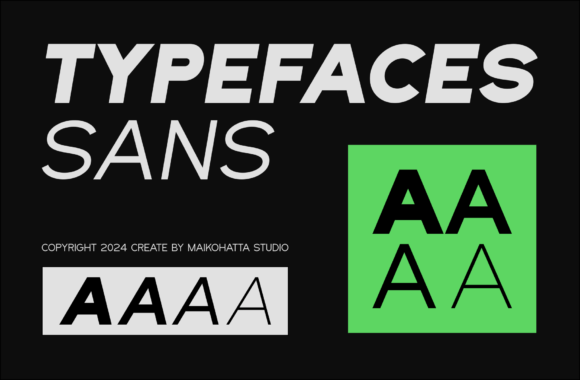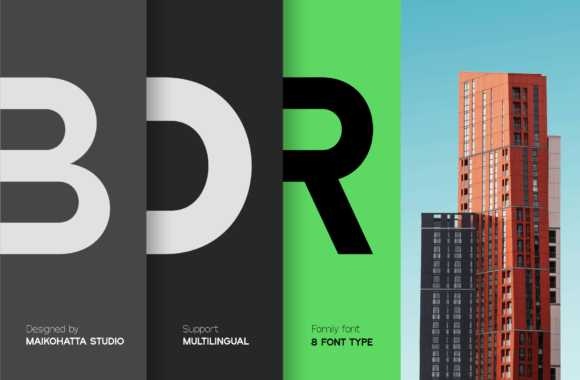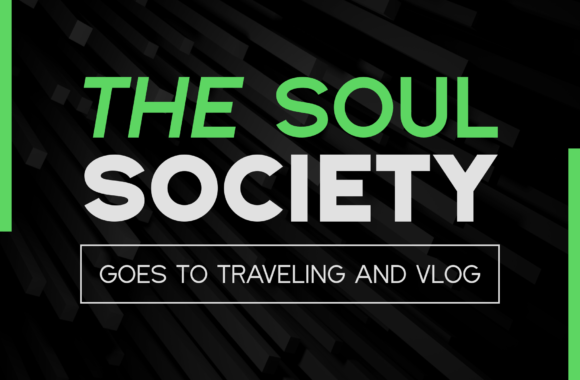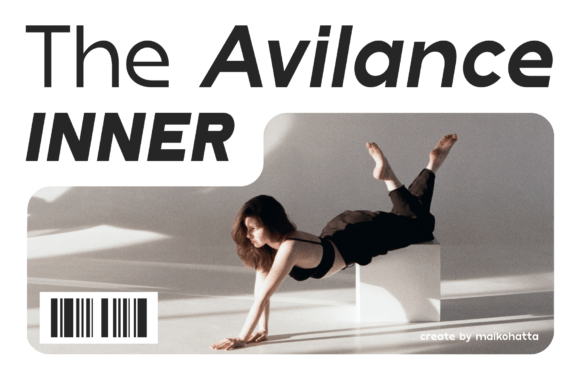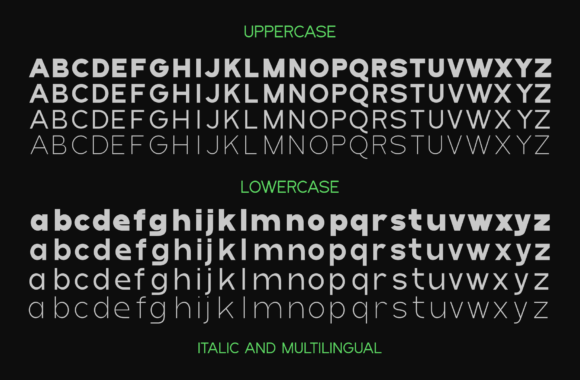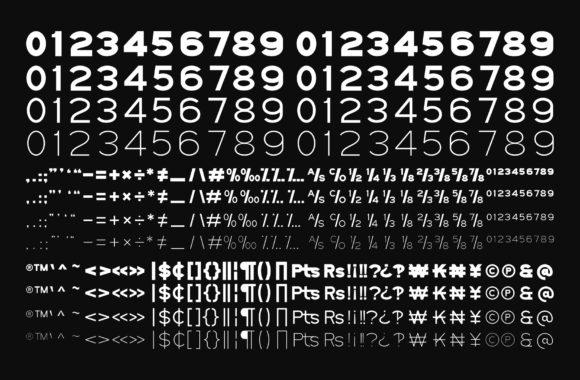
Introducing Bandico: The Ultimate Modern Sans Serif Typeface for Graphic Design
In the world of graphic design, typography plays a crucial role in conveying messages, expressing creativity, and capturing the audience’s attention. A well-chosen font can elevate a design project from ordinary to extraordinary. Today, we’re excited to introduce Bandico, a modern sans serif typeface that is poised to revolutionize the way you approach text displays in your graphic design projects.
What is Bandico?
Bandico is a versatile sans-serif font family designed to cater to the diverse needs of graphic designers, crafters, and businesses. Its clean, modern aesthetic makes it an ideal choice for a wide range of applications, from branding and advertising to digital media and publishing. With Bandico, you can create stunning text displays that are not only visually appealing but also highly legible.
Key Features of Bandico
• Variety of Styles: Bandico is available in multiple styles, offering you the flexibility to choose the perfect look for your project. Whether you’re aiming for a sleek, minimalist design or a more playful, creative vibe, Bandico has got you covered.
• High Versatility: This sans-serif font family is designed to adapt to various design contexts, making it a highly versatile choice for graphic designers. From headings and titles to body text and captions, Bandico performs exceptionally well in any setting.
• Clean and Modern Aesthetic: Bandico boasts a clean, modern design that ensures your text stands out without overpowering the content. Its sleek lines and carefully crafted letterforms make it perfect for projects that demand a contemporary look and feel.
• Easy to Read: Despite its modernity, Bandico remains highly legible, even at smaller font sizes. This makes it an excellent choice for body text, articles, and other content where readability is paramount.
Benefits of Using Bandico in Your Graphic Design Projects
By incorporating Bandico into your design workflow, you can enjoy a multitude of benefits. Here are just a few:
• Streamlined Workflow: With Bandico’s variety of styles, you can maintain consistency across your projects while still experimenting with different looks. This helps streamline your design process, saving you time and effort.
• Enhanced Creativity: The versatility of Bandico encourages creativity and experimentation. Feel free to mix and match different styles to create unique text displays that capture the essence of your brand or message.
• Professional Results: Bandico is designed to deliver professional-grade results. Its high-quality design ensures that your text displays look polished and sophisticated, elevating the overall quality of your design projects.
Who Can Benefit from Bandico?
Bandico is an excellent addition to any designer’s toolkit, regardless of their specialization. Here are some professionals who can particularly benefit from this modern sans serif typeface:
• Graphic Designers: Looking for a versatile font that can adapt to various design contexts? Bandico is your go-to choice for creating stunning text displays.
• Digital Marketers: Enhance your brand’s online presence with Bandico’s clean, modern aesthetic. It’s perfect for website content, social media posts, and advertising campaigns.
• Crafters and Makers: If you’re into crafting, packaging design, or any form of creative project that involves text, Bandico offers a wide range of styles to match your unique aesthetic.
Font Name Bandico Font
Author maikofarazhatta
In conclusion, Bandico is more than just a font – it’s a design solution that offers flexibility, versatility, and a modern aesthetic. Whether you’re a seasoned graphic designer or a crafty DIY enthusiast, Bandico has the potential to transform your text displays into visually stunning elements that capture attention and convey your message effectively. With its variety of styles, clean design, and high legibility, Bandico is poised to become your new favorite sans serif typeface.